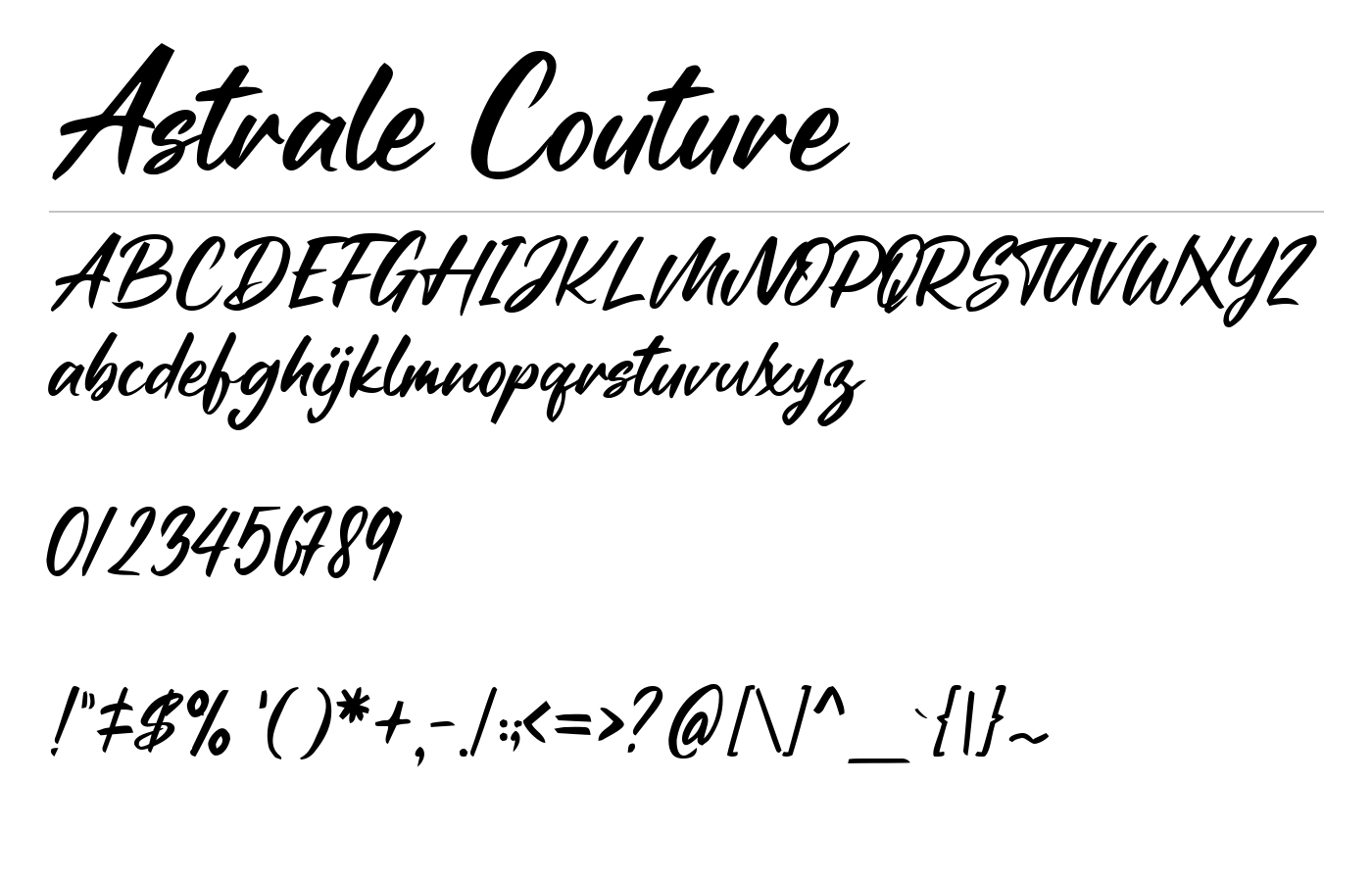
Astrale Couture is an elegant and flowing script font with a modern calligraphic style, featuring smooth, slightly slanted letterforms and a dynamic, handwritten feel. Its medium weight and lively strokes make it perfect for fashion, beauty, and luxury branding, adding a touch of sophistication and personal charm to logos, packaging, and headlines. This font's graceful yet approachable look works beautifully where a stylish, contemporary sense of elegance is desired.
Astrale Couture Font
About Astrale Couture Font